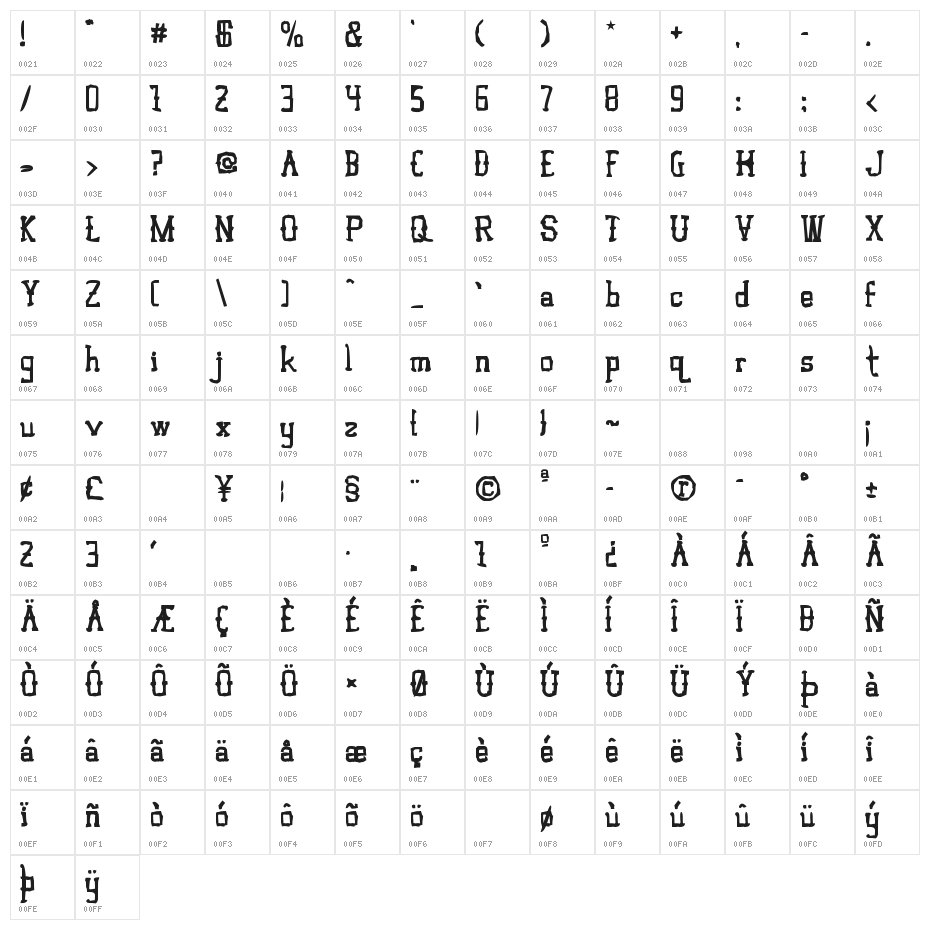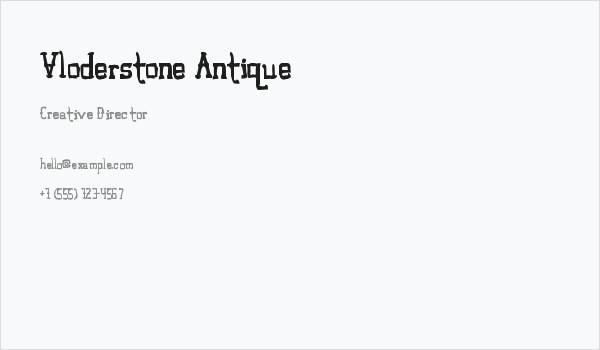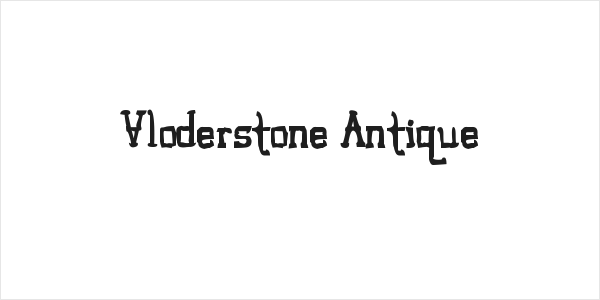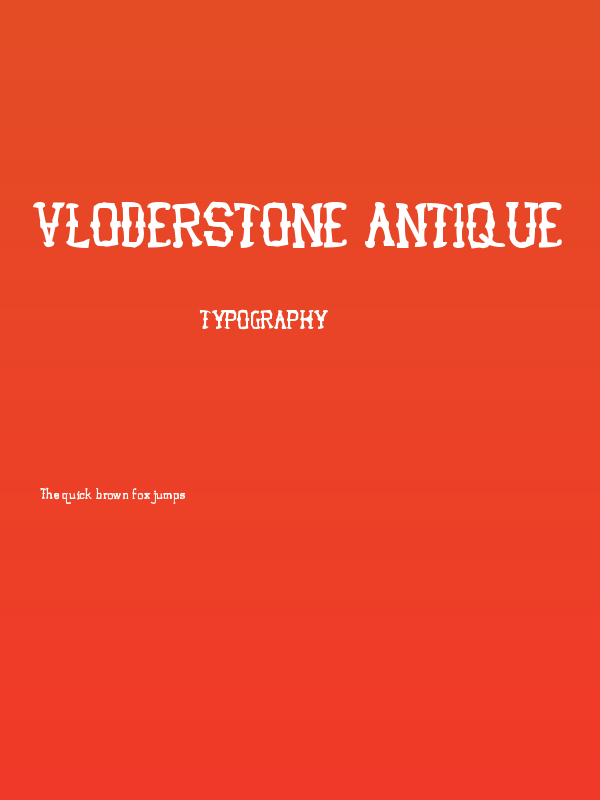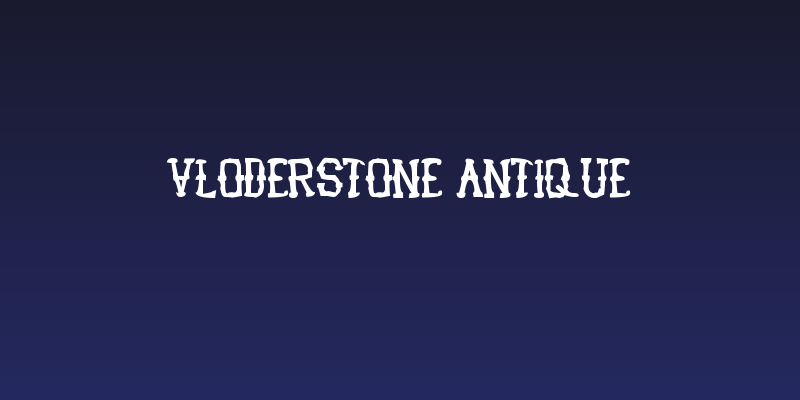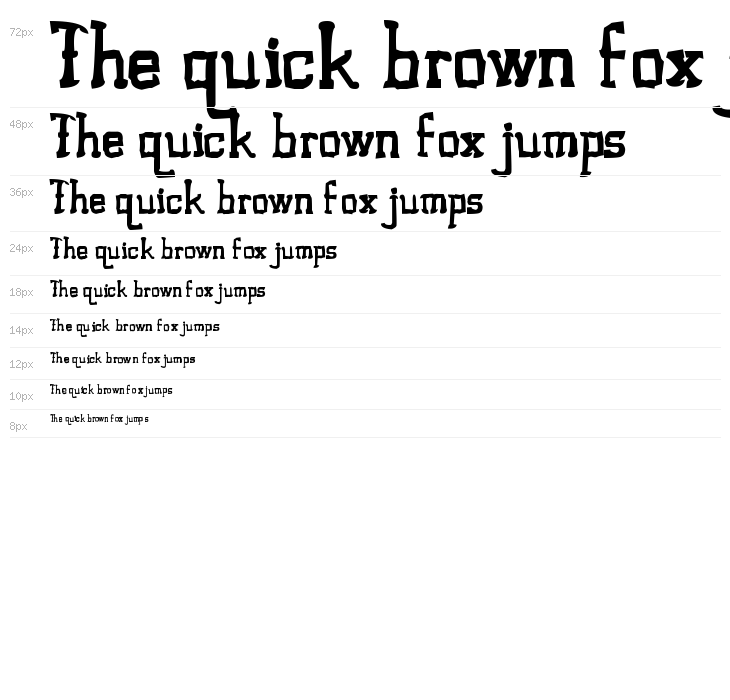
Vloderstone Antique Font
Vloderstone Antique Description
This font features a distinctive and bold design with an antique, hand-crafted appearance. The characters are irregular and have a rough, textured look, reminiscent of vintage woodcut prints. The uppercase letters are tall and commanding, while the lowercase letters maintain a consistent style with slightly varied heights and widths. Numbers and special characters follow the same rugged aesthetic, making the font suitable for projects that require a touch of historical or rustic charm. The overall style is both decorative and expressive, with a unique personality that stands out.
| Proposed Projects | Ideal for vintage posters, historical-themed designs, book covers, and branding that requires a rustic or antique feel. |